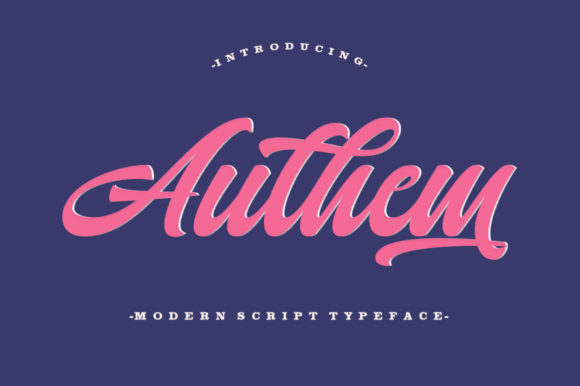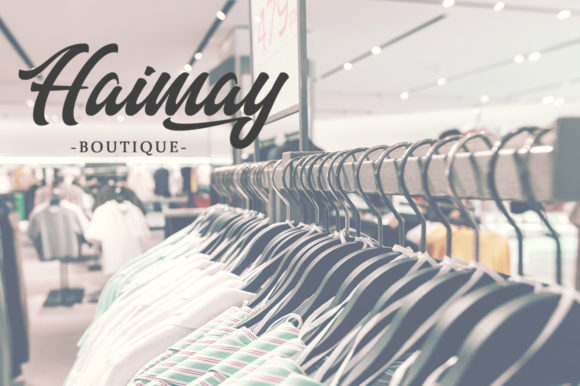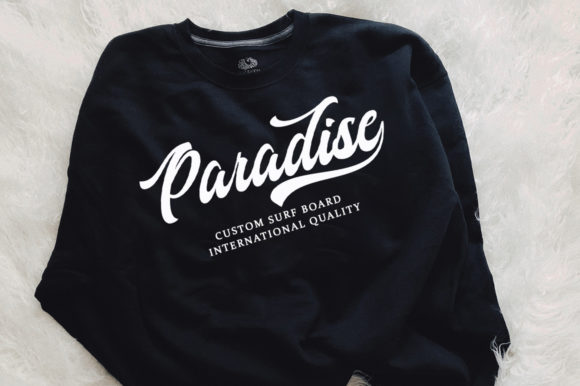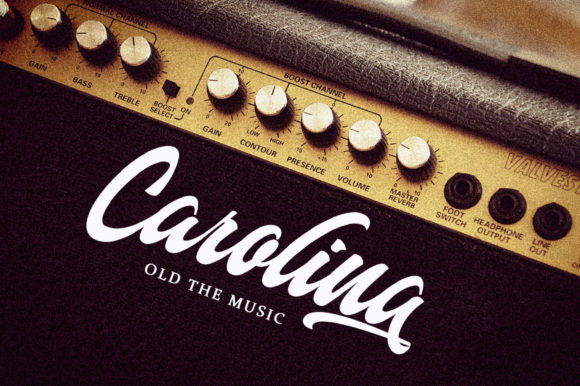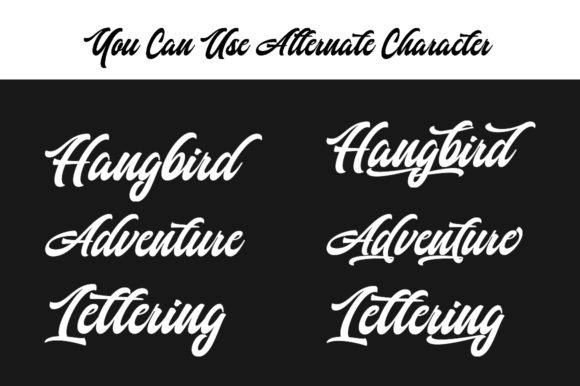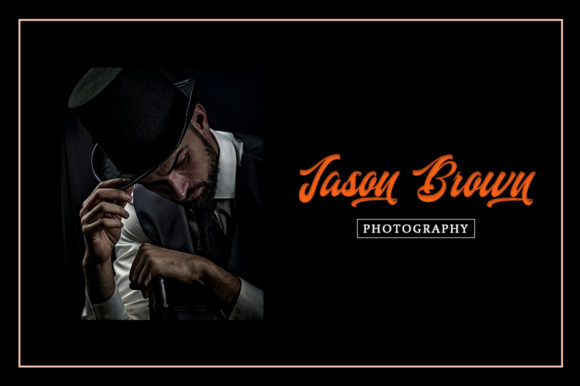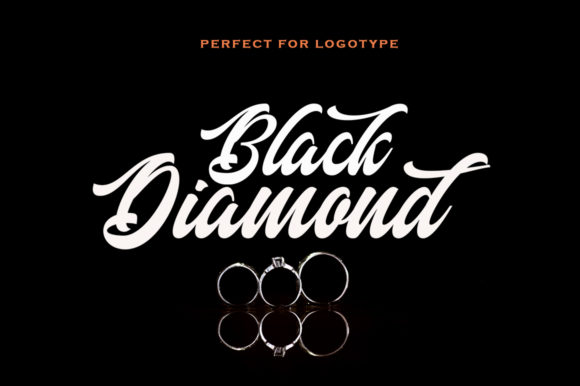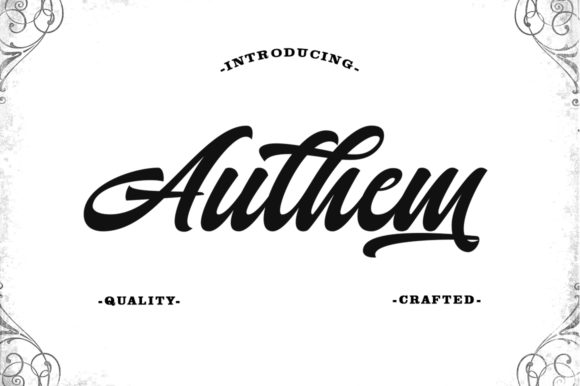
HomeScript FontsAuthem Font Script Fonts Authem Font FacebookXPinterestWhatsApp Authem Font Poster 2 Authem Font Poster 3 Authem Font Poster 4 Authem Font Poster 5 Authem Font Poster 6 Authem Font Poster 7 Authem Font Poster 8 About Authem Font Authem is a cool and fun script font with a bold style. It will add a vintage look to any crafting idea! DOWNLOAD NOW People also explored Chicago Font Love Live Font Sego Kucing Font Riquette Agriculture Font The Chief Font Writing Signature Font Boxing Paroots Font 311 0 TagsAuthem Font Previous articleMolly & Elroy FontNext articlePollard Script Font LEAVE A REPLY Cancel reply Comment: Please enter your comment! Name:* Please enter your name here Email:* You have entered an incorrect email address! Please enter your email address here Website: Save my name, email, and website in this browser for the next time I comment. Personal Use Free I Am Exceptional Personal Use Free Read more about this font Monofonto Personal Use Free Read more about this font Vuldo Personal Use Free Read more about this font Beat My Guest Personal Use Free Read more about this font BLOG The 10 Best Handwriting Fonts to Add Personality to Your Designs 10 of the Best Handwriting Fonts for Adding Personality to Your Designs There will undoubtedly be no other better choice than handwriting fonts to give... How to Install and Use Fonts on Windows, macOS, and Web Projects How to Cut Any Font on Cricut: Convert a Font to SVG (Free) Exploring Font Trends